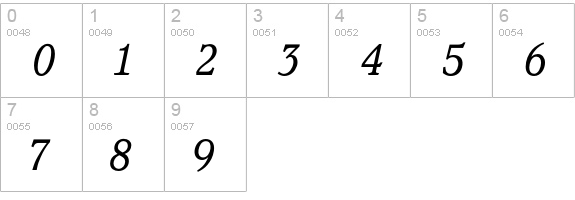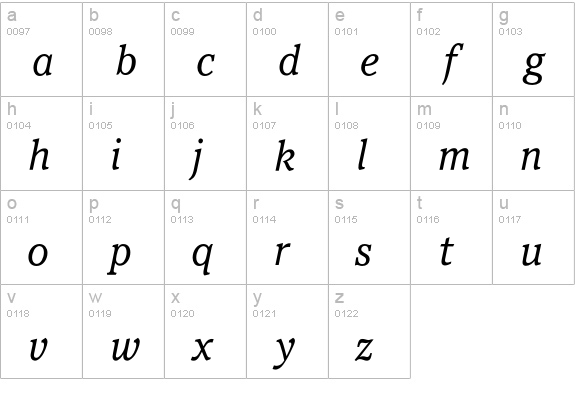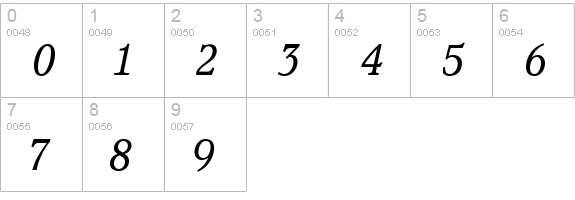
PacellaBookItalic Font Details
PacellaBookItalic is a stunningly elegant font that adds a touch of sophistication to any design. With its beautifully slanted and gracefully curved letters, this font exudes a sense of style and refinement. The italicized form of the PacellaBook font family, PacellaBookItalic, is perfect for adding emphasis and flair to your projects. But what sets PacellaBookItalic apart from other fonts is that it is not only aesthetically pleasing, but also freely available to download. That's right, you can get your hands on this exquisite font without breaking the bank. Simply head over to FontsMarket.com and you'll have access to the PacellaBookItalic font, completely free of charge. Whether you're designing a logo, creating a poster, or crafting a stunning website, PacellaBookItalic will elevate your design to new heights. Its versatility allows it to be used in a variety of contexts, from elegant and formal to modern and chic. Its timeless appeal ensures that it will never go out of style. So why wait? Download PacellaBookItalic today and experience the beauty and versatility of this remarkable font. FontsMarket.com is your go-to destination for free fonts, and PacellaBookItalic is just one of the many gems waiting to be discovered. Enhance your designs with this freely available font and let your creativity shine.